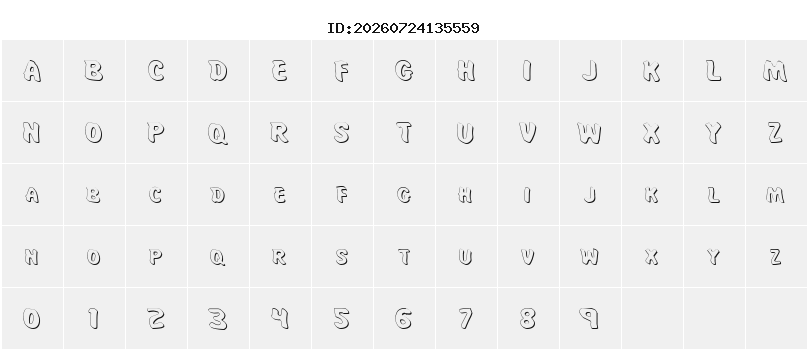
• Font Name: Miss Amanda Shadow
• Font Style: Shadow
About Miss Amanda Shadow.ttf
Miss Amanda Shadow.ttf is a modern, elegant sans-serif font designed for ultimate readability and visual harmony. Perfect for branding, headlines, web design, and print materials.